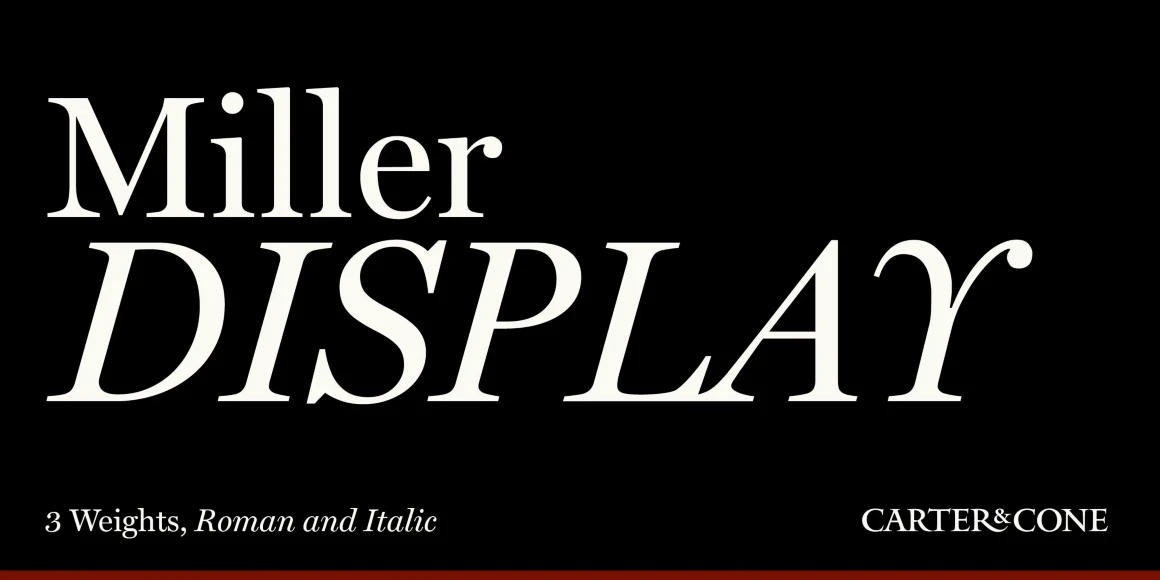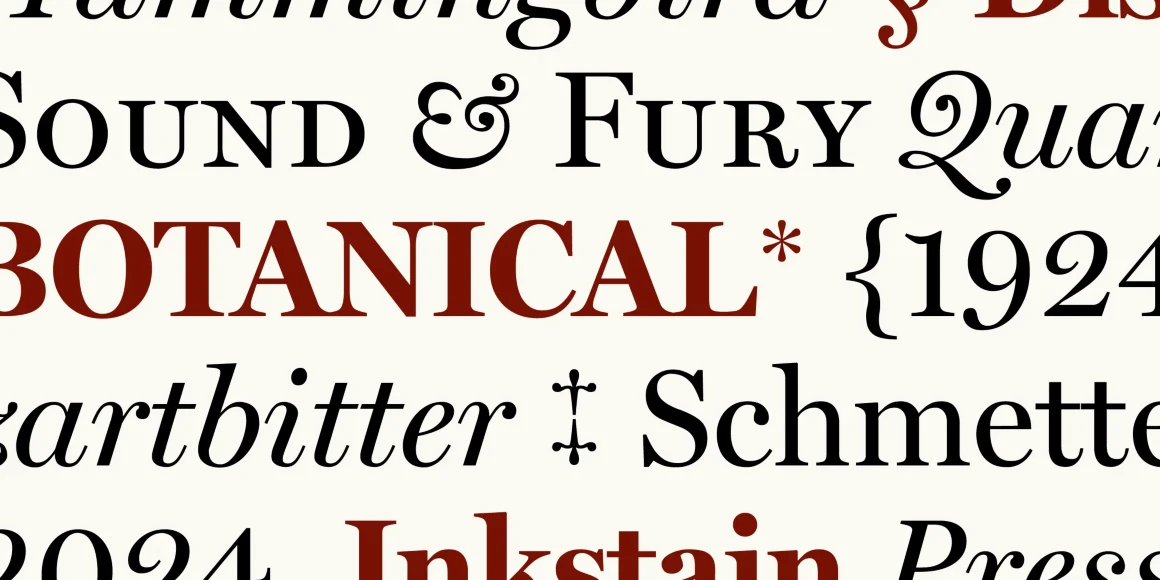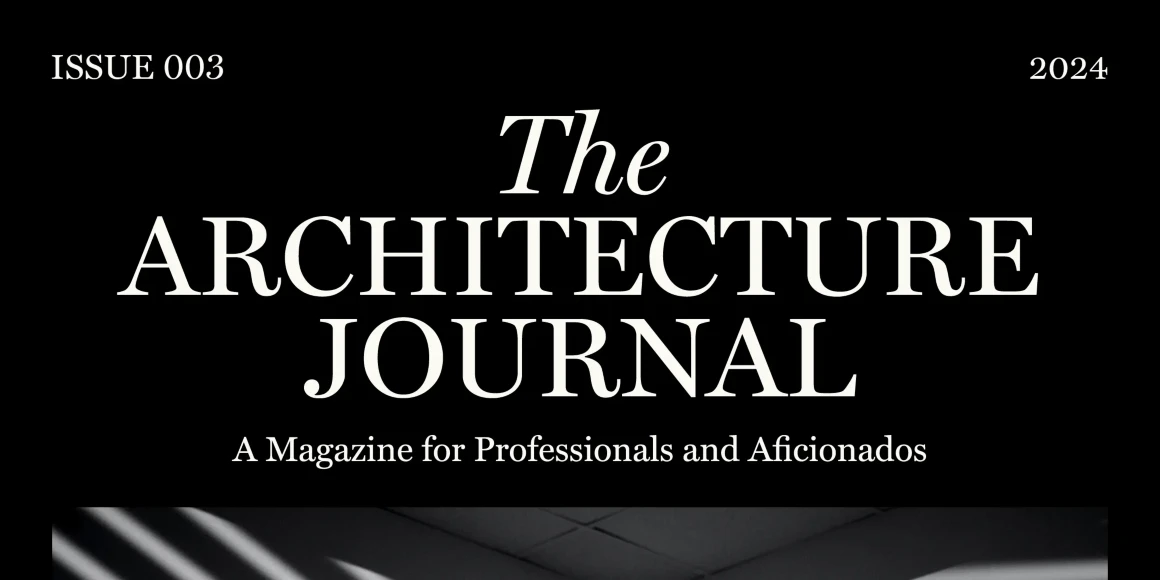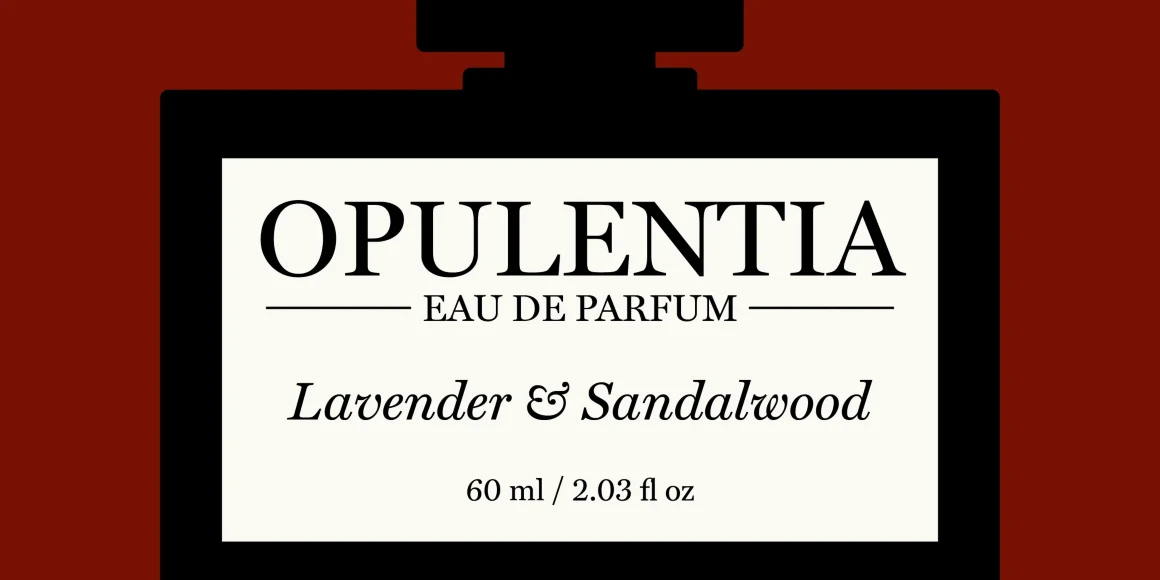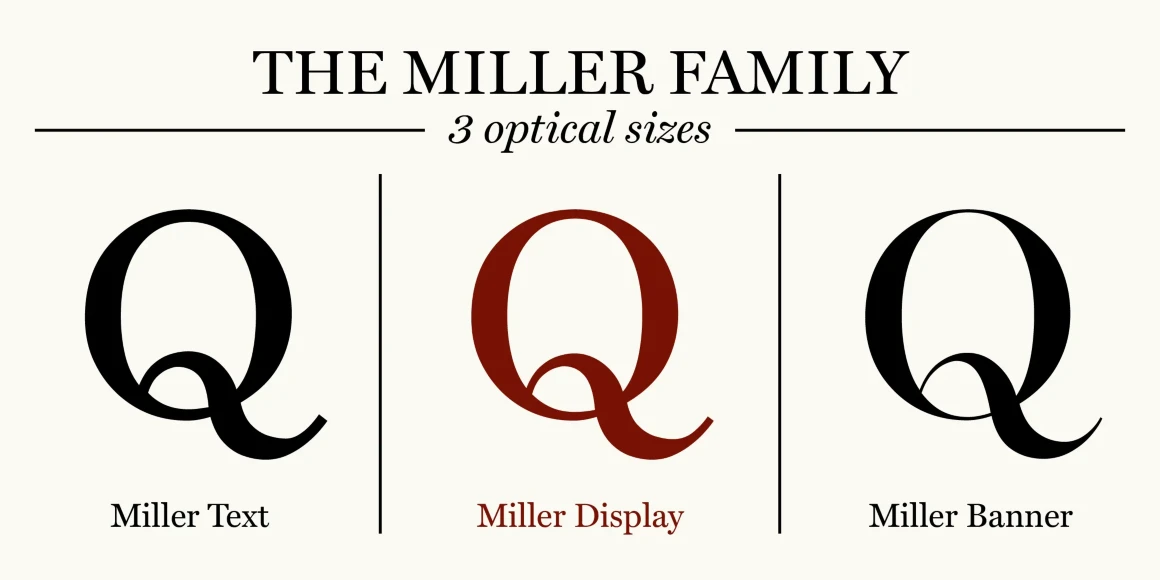
Miller Display
From Carter & Cone
From fashion to finance and brands to books, Matthew Carter designed Miller Display with sharpened serifs and enhanced contrast to lend particular polish to headlines, decks, and pull quotes in need of something special to jump off the page or screen. The Miller family of typefaces is a seminal reinvigoration of the 19th-century Scotch Roman. This series was a team effort, with Richard Lipton, Jill Pichotta, Tobias Frere-Jones, and Cyrus Highsmith contributing at different stages.
Designed by Matthew Carter, Richard Lipton, Jill Pichotta, Tobias Frere-Jones & Cyrus Highsmith